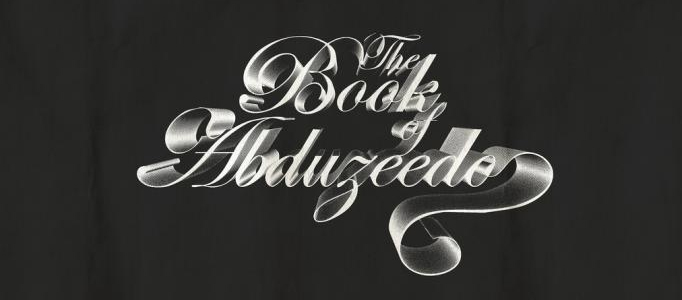
Design Fabulous Silver Art Fonts
Nice art fonts can be used to match with various art style web sites. However, it is not easy to design some nice art fonts
Design Fabulous Silver Art Fonts
Nice art fonts can be used to match with various art style web sites. However, it is not easy to design some nice art fonts. You may need to refer to some good samples as beginning.